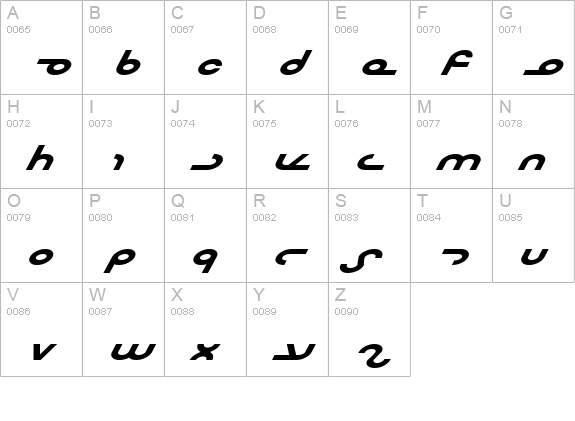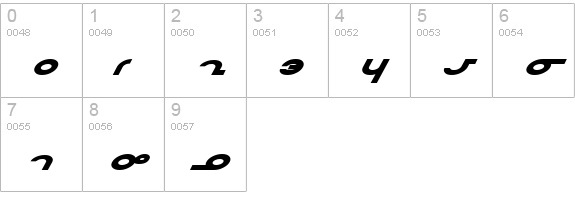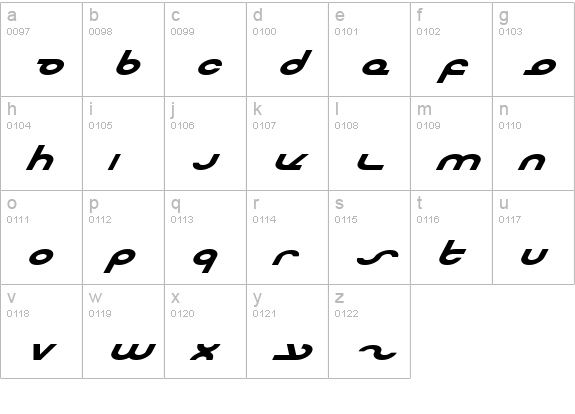
Masterdom Exp Bold Italic is a strong, high-contrast, italic variant in the Masterdom typeface family \xE2\x80\x94 well suited to headlines, attention-grabbing titles, and strong calls-to-action.
Masterdom Exp Bold Italic is a striking and modern font that exudes confidence and sophistication. With its bold and italicized design, this font is perfect for making a statement and capturing attention. The sleek lines and sharp angles create a sense of power and authority, making it ideal for headlines, titles, and branding materials. What sets Masterdom Exp Bold Italic apart is not only its visual impact but also its versatility. Whether used in digital or print media, this font maintains its clarity and elegance, ensuring that your message is communicated effectively to your audience. The best part? Masterdom Exp Bold Italic is available for free download at FontsMarket.com. This means that you can elevate your designs without breaking the bank. Don't miss out on this opportunity to enhance your projects with a font that truly stands out.